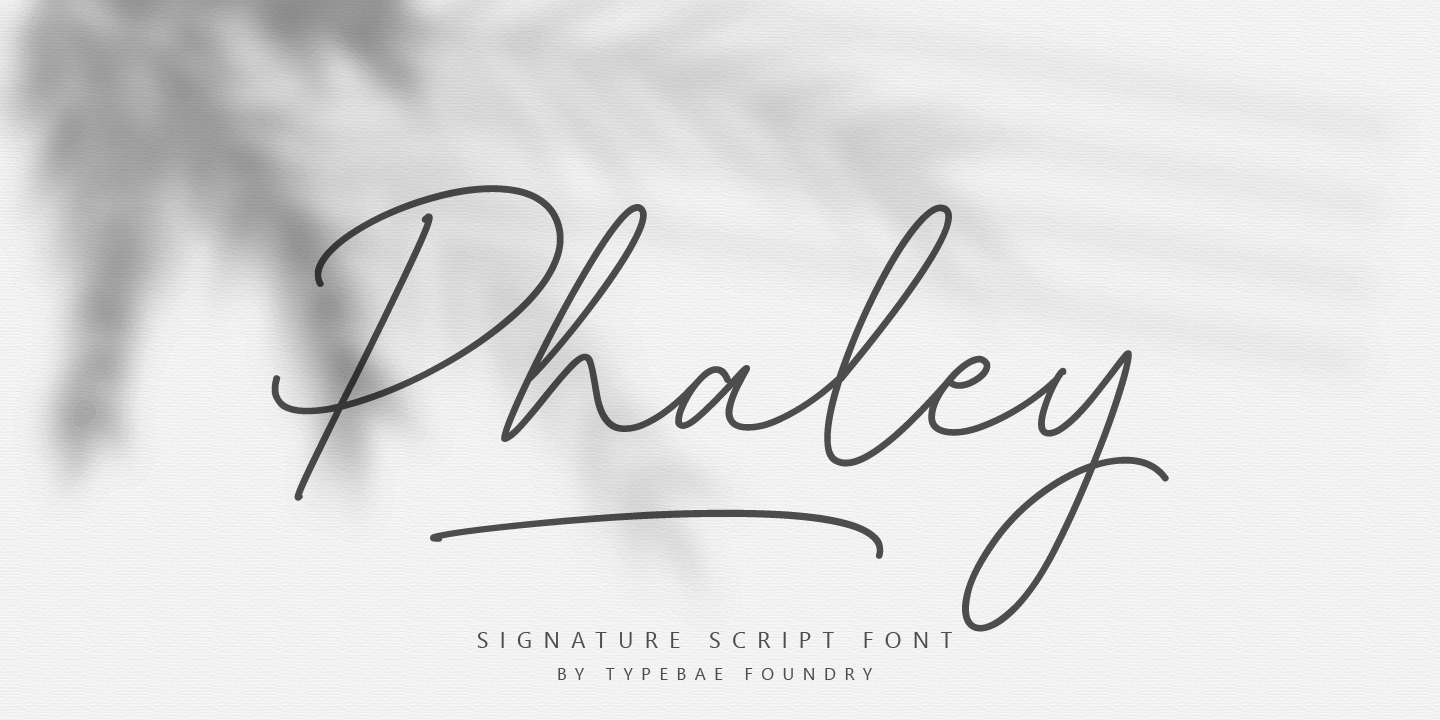
Phaley Font is perfect for modern lifestyle branding, contemporary fashion labels, minimalist design projects, clean corporate communications, sleek product packaging, sophisticated web interfaces, elegant editorial layouts, and refined professional presentations.
What makes Phaley Font exciting is its refined contemporary elegance that captures the essence of modern sophistication through carefully balanced letterforms. The clean character design and contemporary aesthetics create an atmosphere of understated luxury and professional excellence that resonates with discerning audiences seeking quality and style.
Phaley Font family includes thin, light, regular, medium, bold, and black weights, each available in regular and italic styles, plus condensed variations and extended character sets optimized for comprehensive modern typography systems.
Embrace contemporary sophistication with Phaley Font Free Download, the perfect choice for brands seeking to communicate modern elegance and professional excellence. This versatile typeface embodies the spirit of contemporary design through letterforms that seem crafted for the pages of leading lifestyle magazines and the interfaces of cutting-edge digital platforms. The expertly balanced characters feature refined proportions that ensure outstanding legibility while projecting the kind of subtle sophistication that defines premium brands and quality services. Design professionals and contemporary brands consistently select this font for projects requiring the perfect balance of accessibility and elegance that modern communication demands. Its comprehensive weight system provides unlimited flexibility for creating cohesive brand experiences while maintaining consistent refinement throughout all customer touchpoints. Experience the transformative power of contemporary typography that elevates standard communications into expressions of modern sophistication, establishing your brand as a leader in today's design-conscious marketplace where elegance and functionality determine lasting success and customer loyalty in an increasingly competitive business environment.